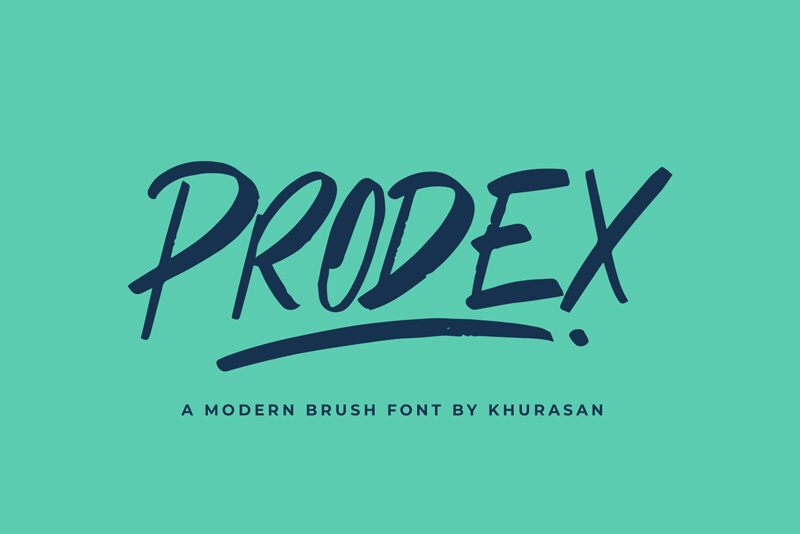
Prodex
Prodex, designed by Khurasan, is a striking brush and marker font that exudes modernity. Its bold and expressive strokes command attention, making it perfect for various creative projects.
Use Prodex to bring life to your branding materials, including logos and packaging designs. Its energetic vibe also makes it a great choice for eye-catching social media graphics and posters that demand immediate impact.
With Prodex, you'll effortlessly infuse your work with a contemporary edge that captivates audiences across different industries.